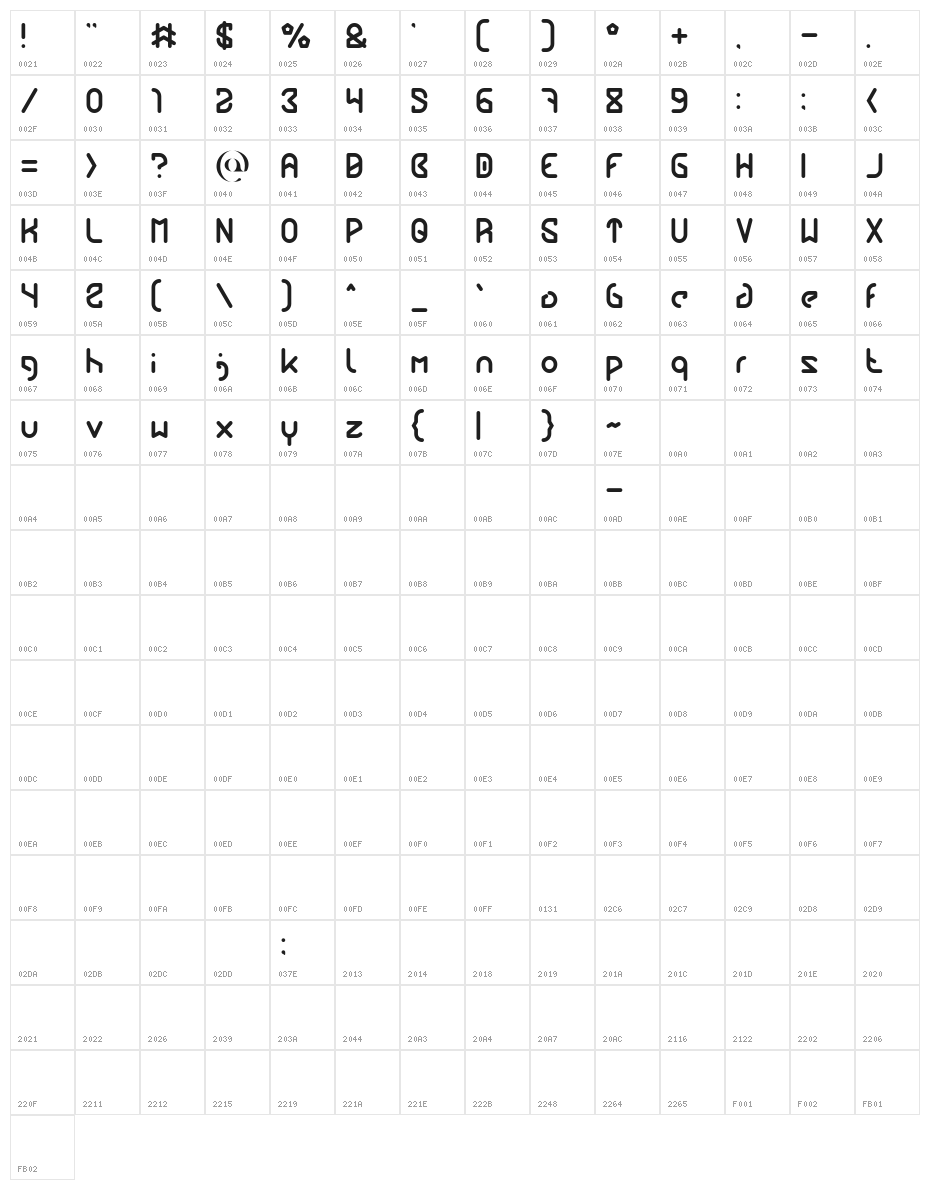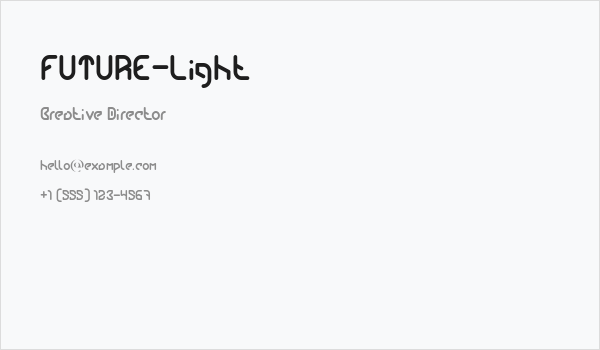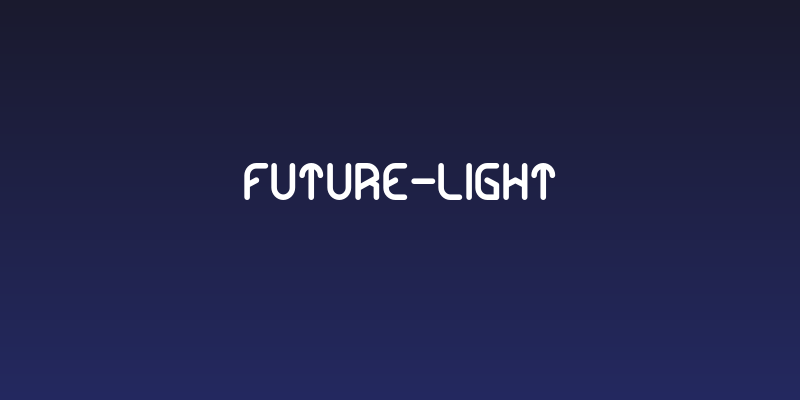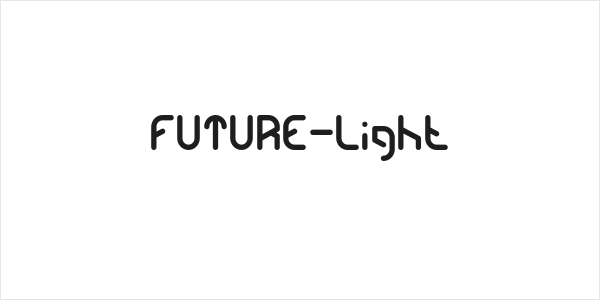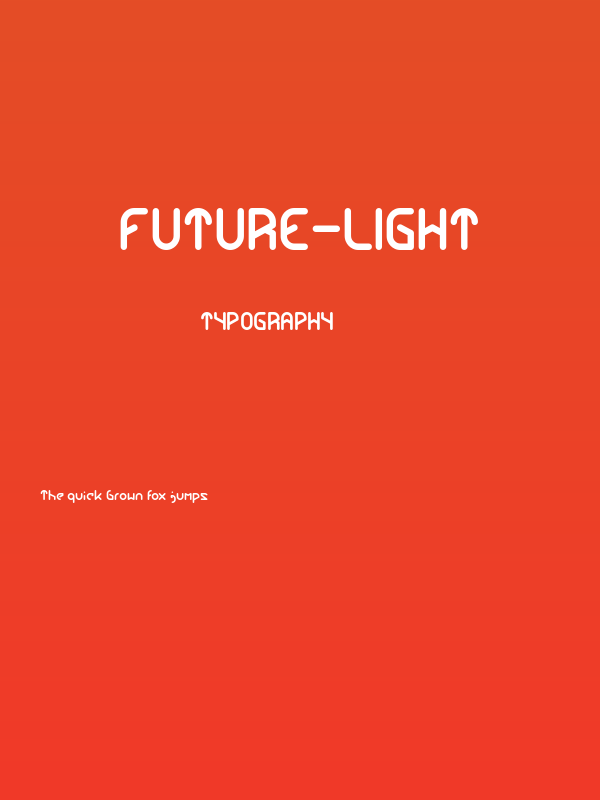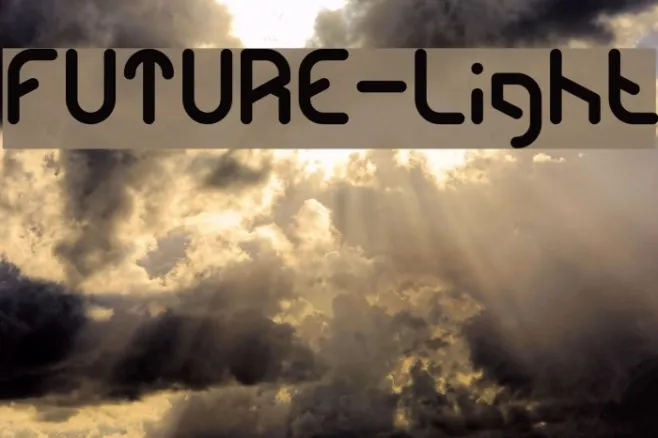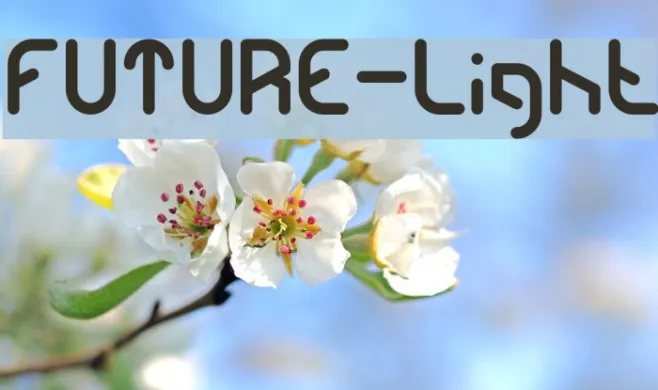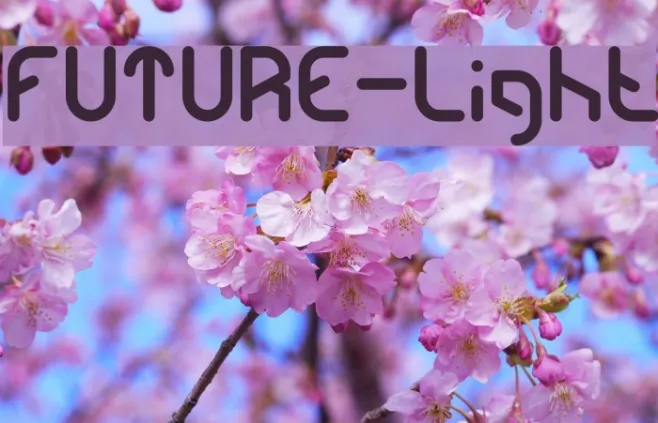
FUTURE-Light Font
FUTURE-Light Description
This font features a futuristic and geometric design with rounded edges and a consistent stroke width. The characters are bold and have a uniform appearance, creating a modern and sleek look. The uppercase letters are distinct with a slightly condensed form, while the lowercase letters maintain a similar style with a touch of playfulness. The numbers are clear and easy to read, matching the overall aesthetic. Special characters are well-integrated, maintaining the font's cohesive design. This typeface is ideal for projects that require a contemporary and tech-inspired feel.
| Use Case | Headlines, Logos, Digital interfaces |
| Proposed Projects | Ideal for tech branding, sci-fi themed designs, modern advertising, and digital interfaces. |